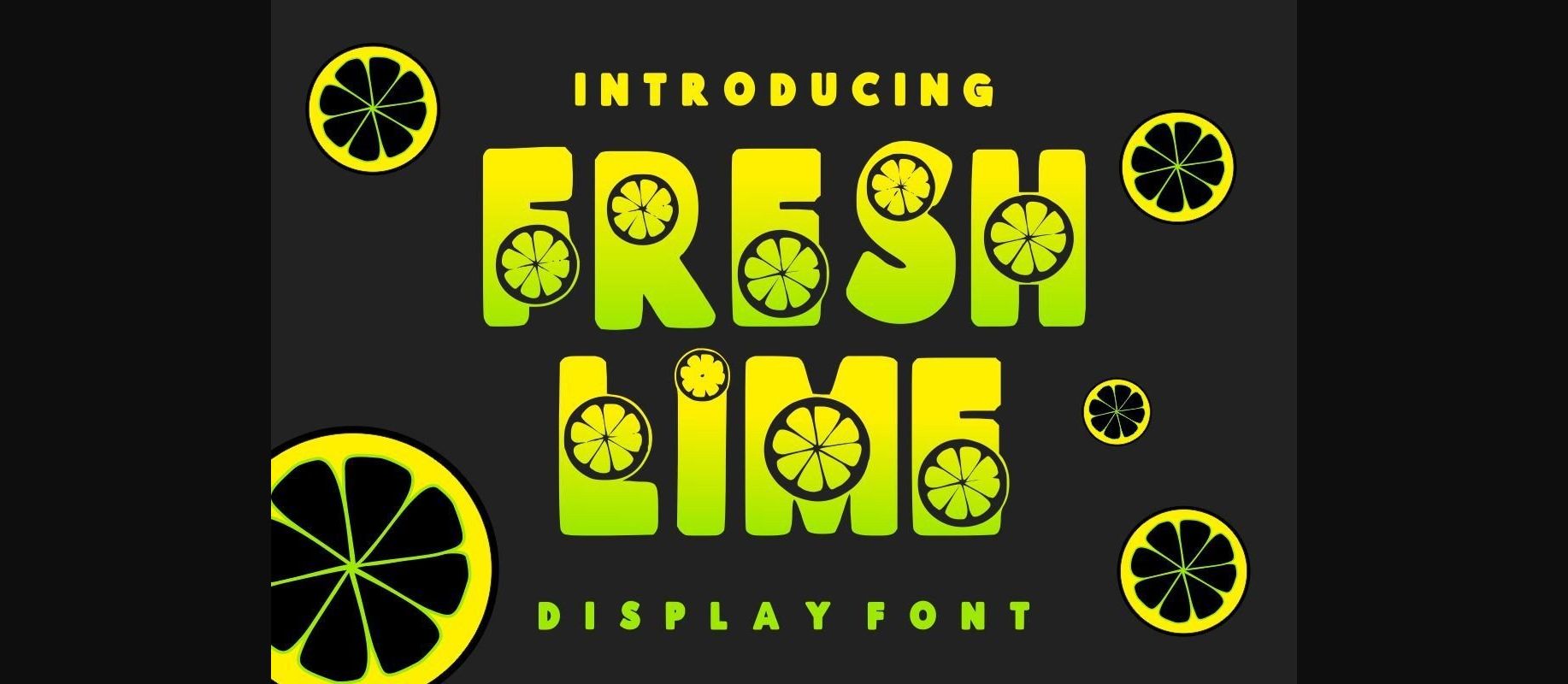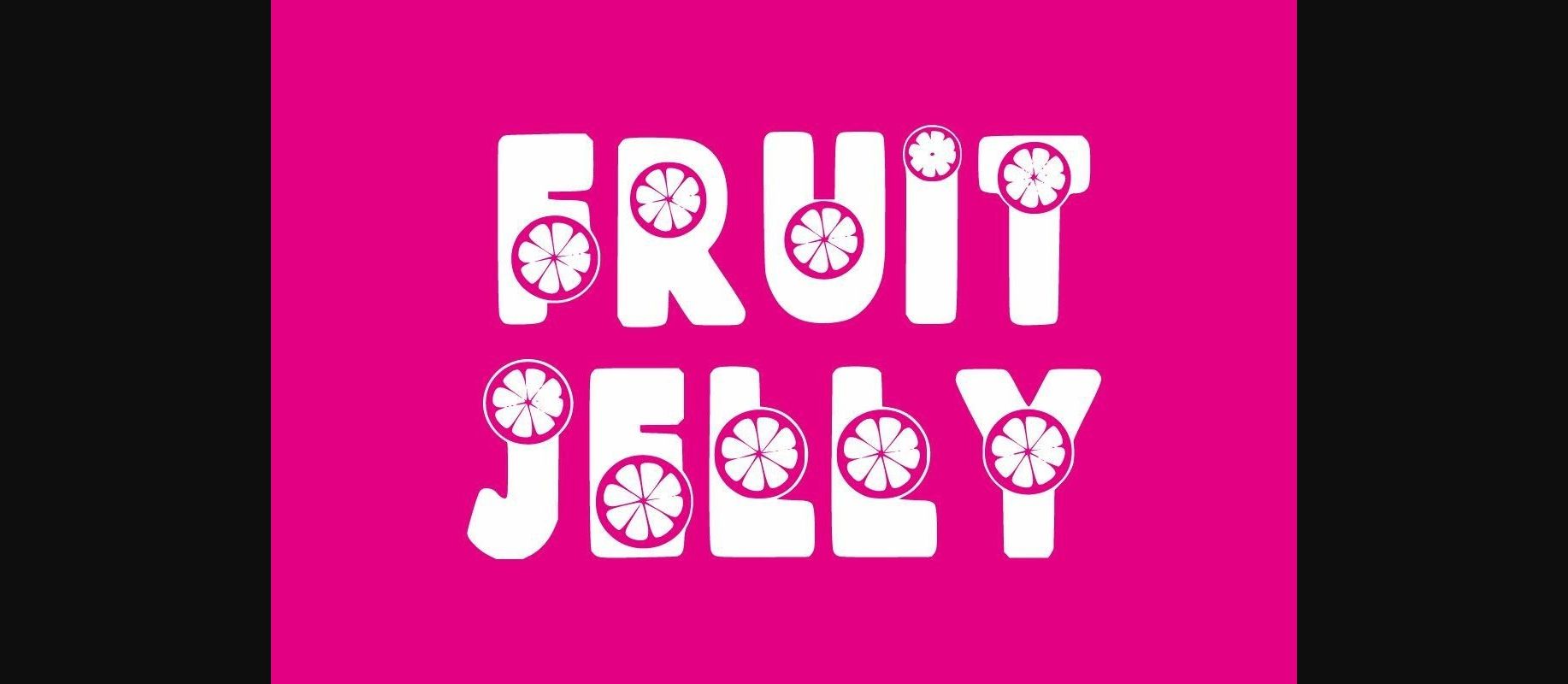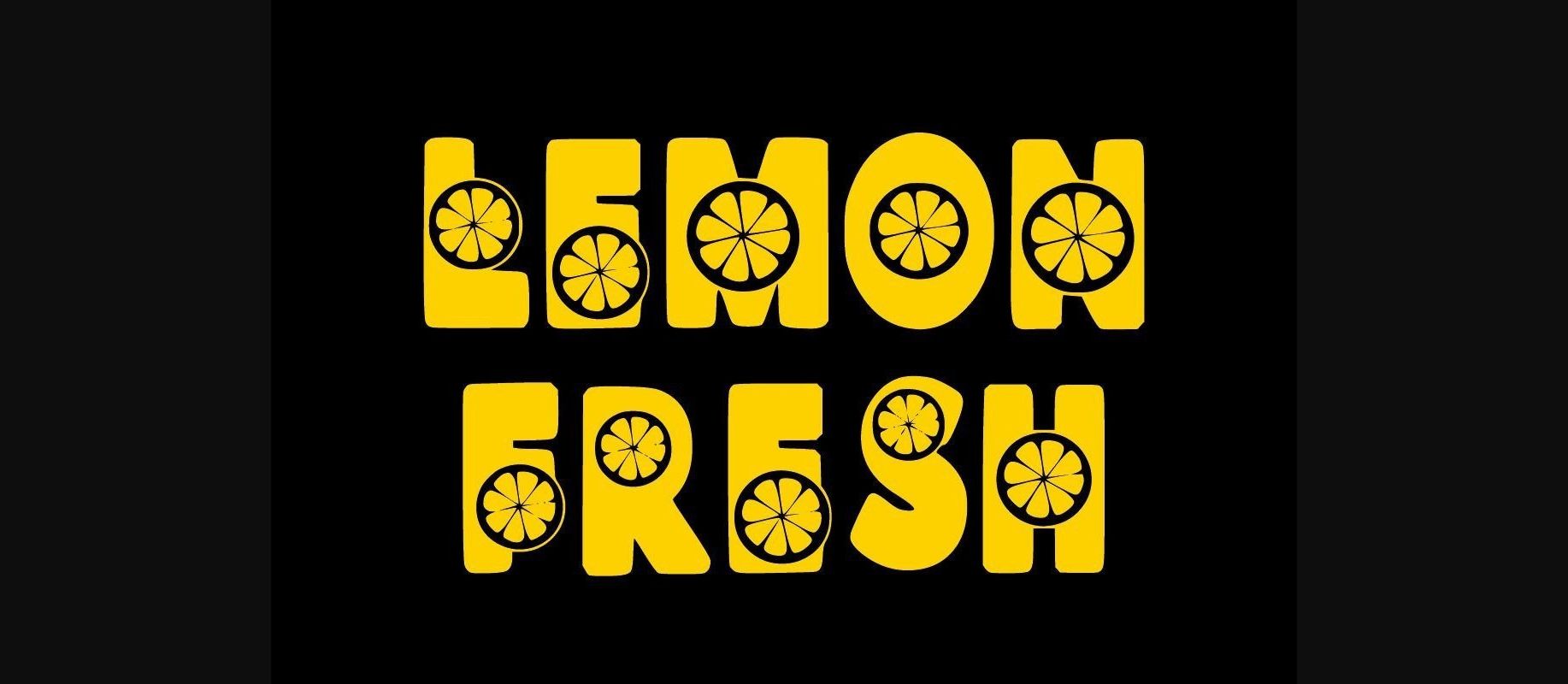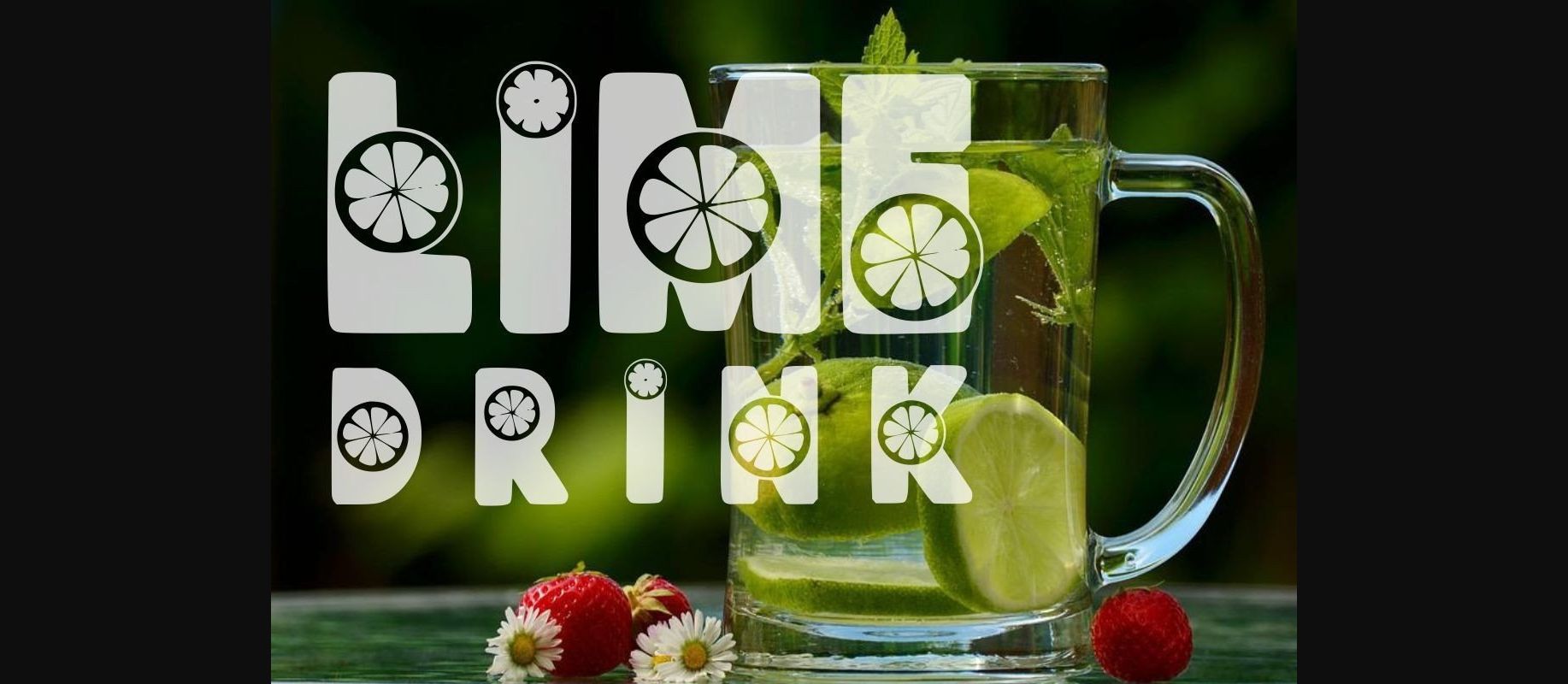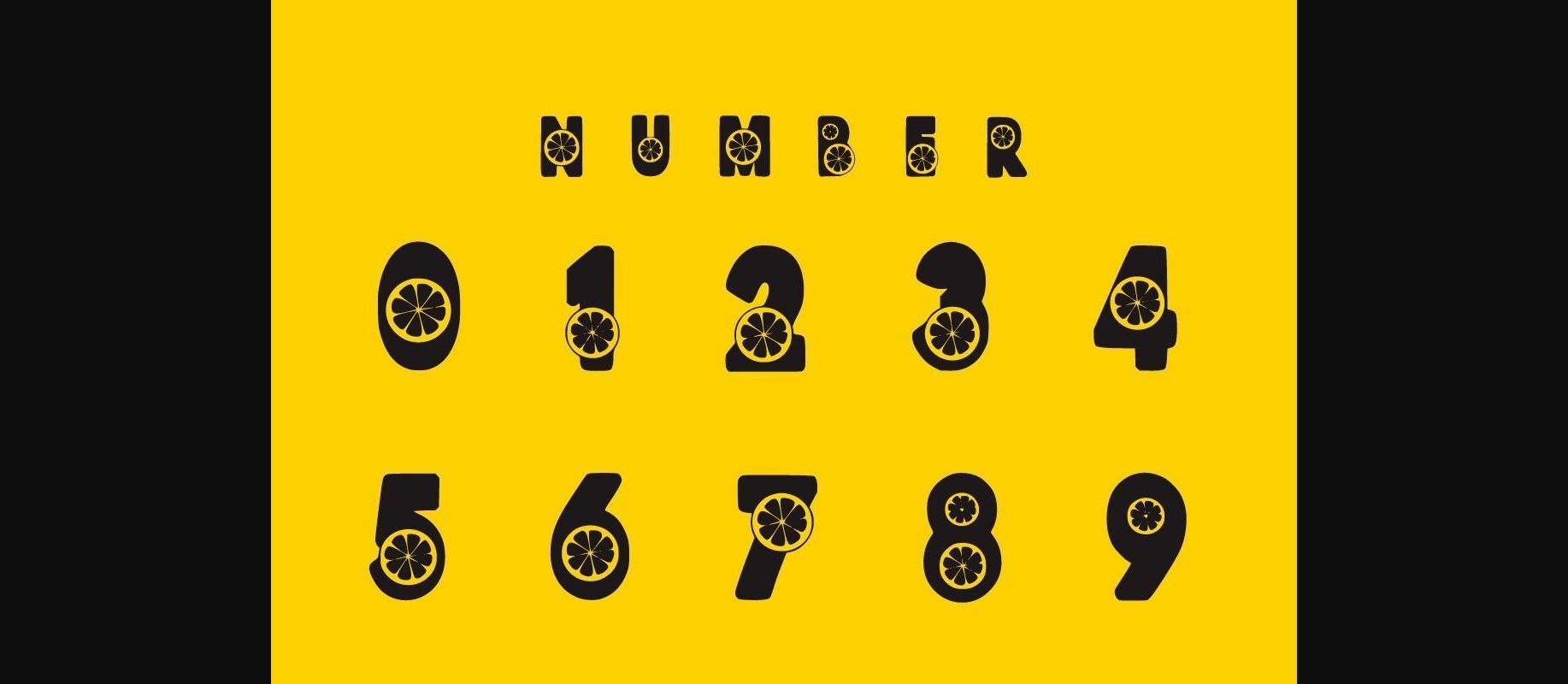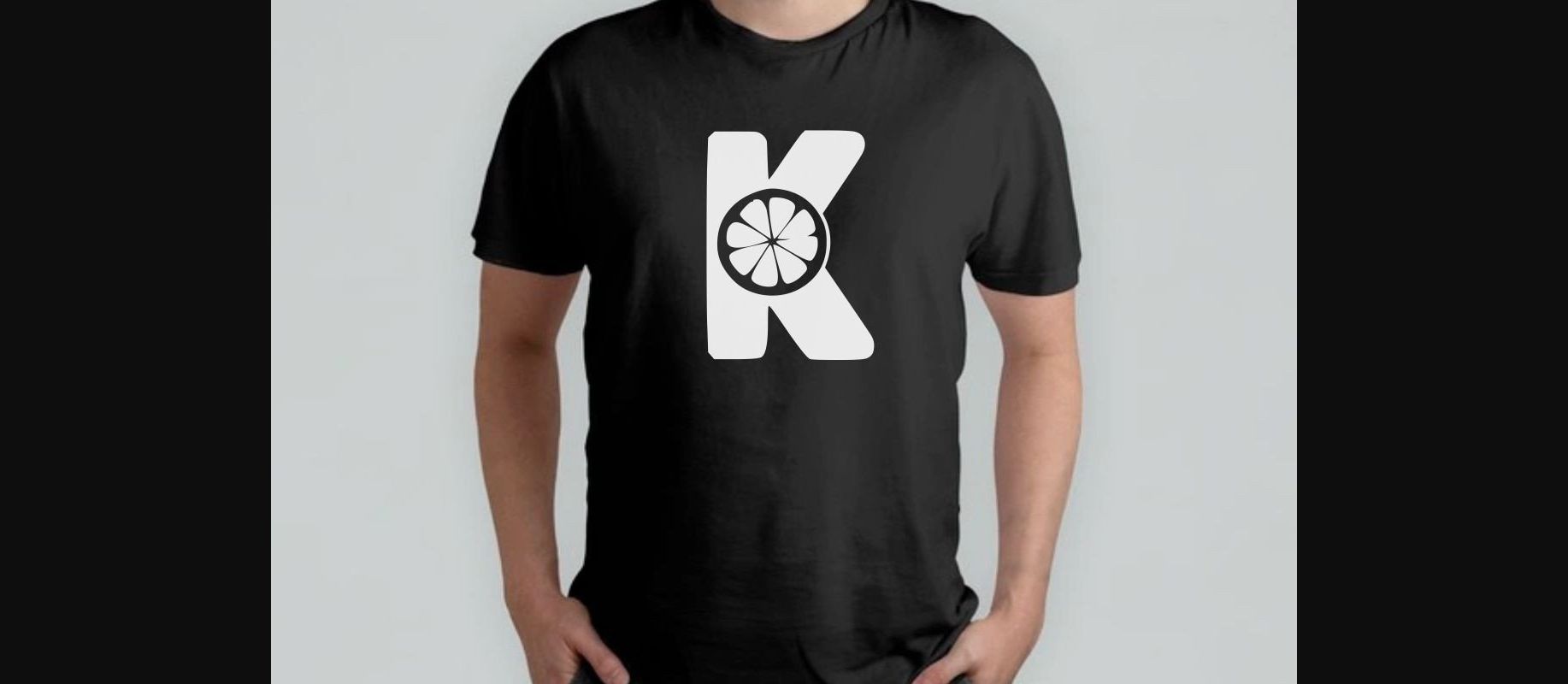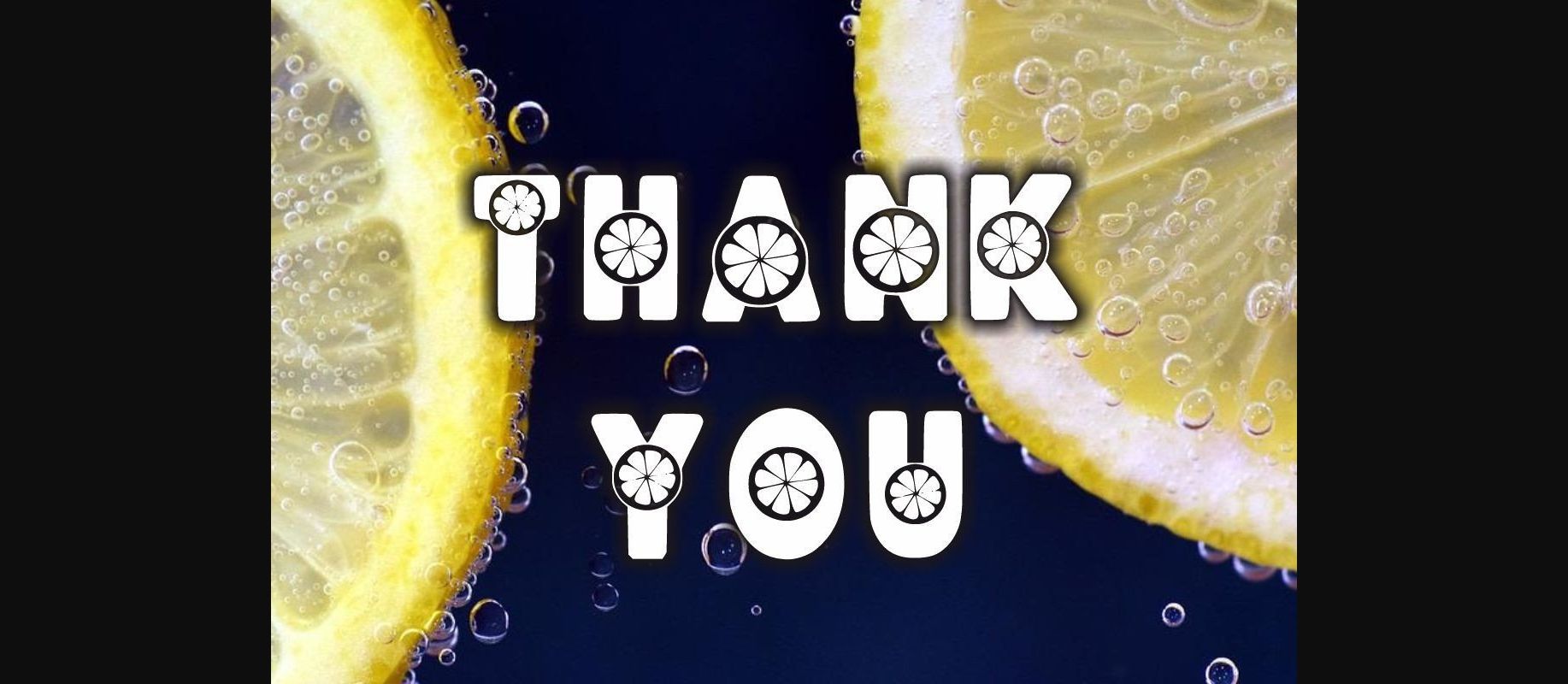
Fresh Lime Font
About Fresh Lime Font
Fresh Lime is a combination of a graphic lime and a bold-lettered decorative font. Whether you use it for cartoon-related designs, logos, cover designs, social media, spring crafts, children’s games, or just any creation that requires a lovely touch, this font will be an amazing choice.